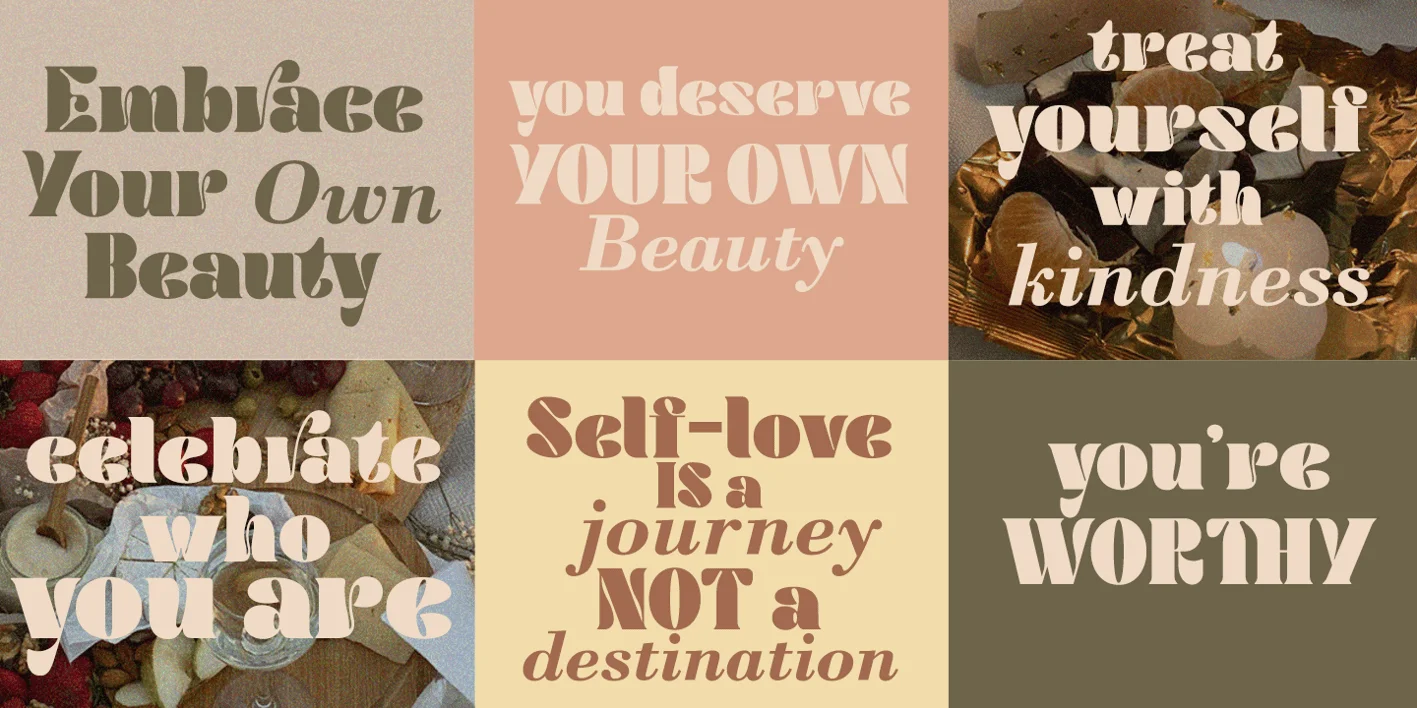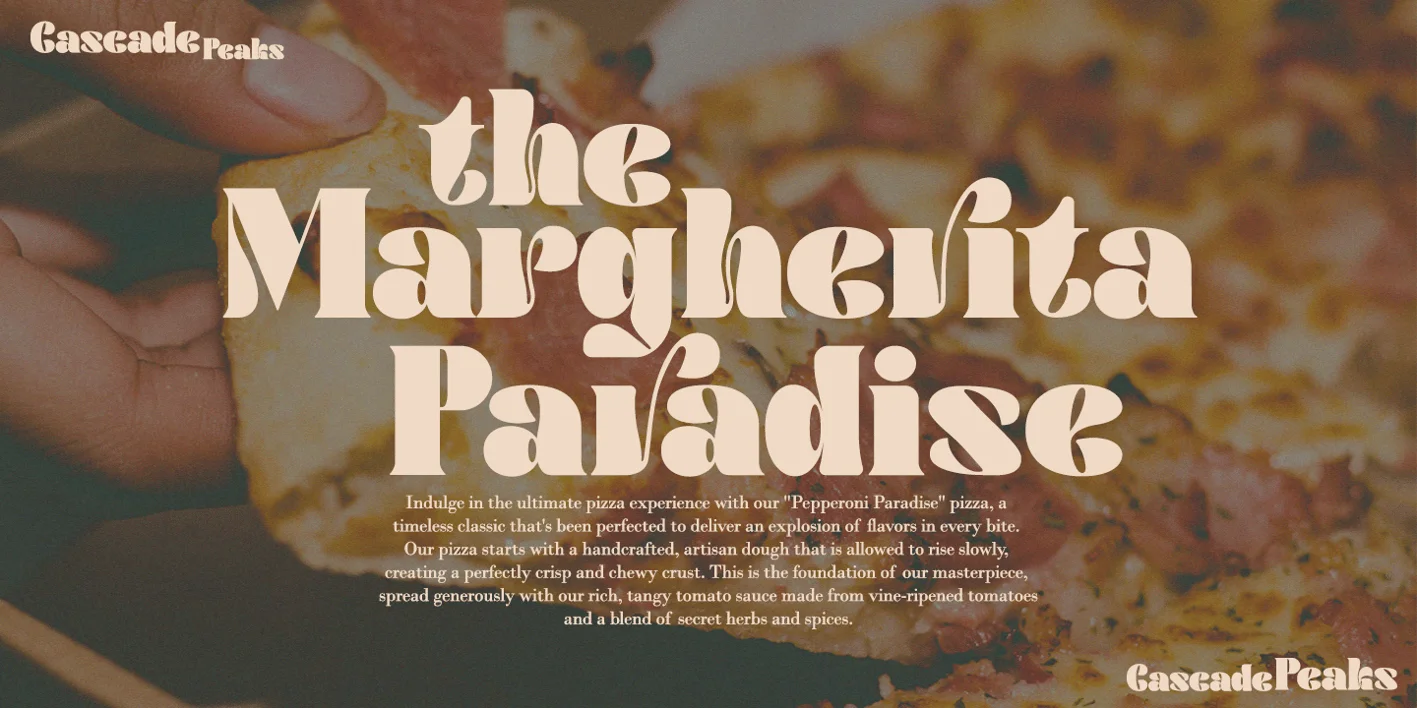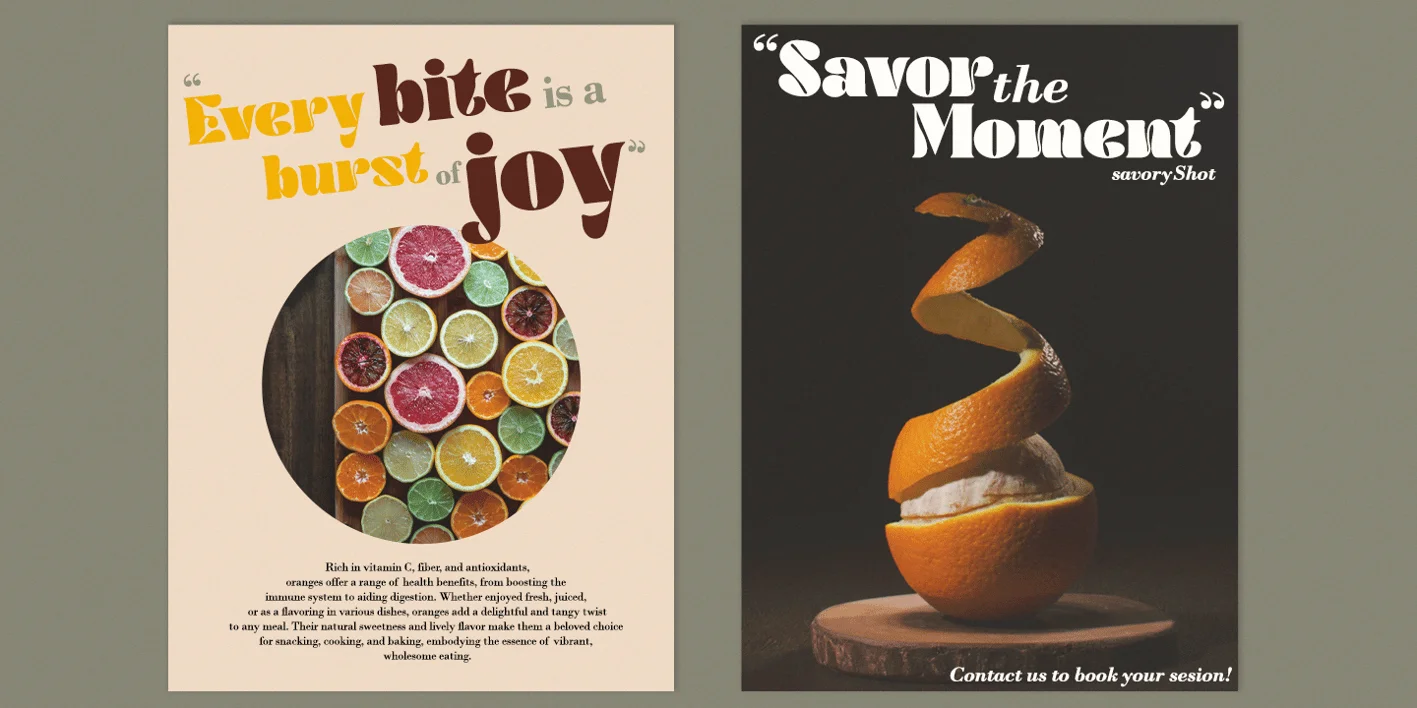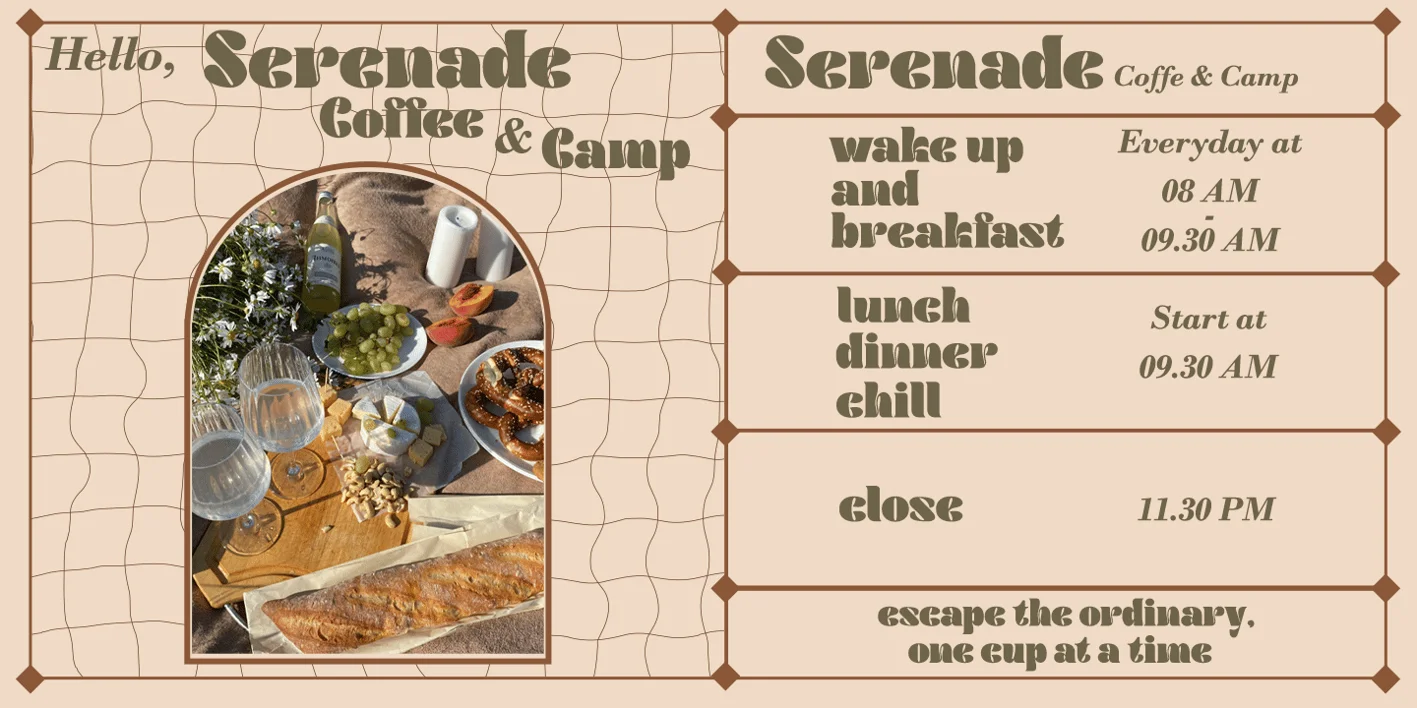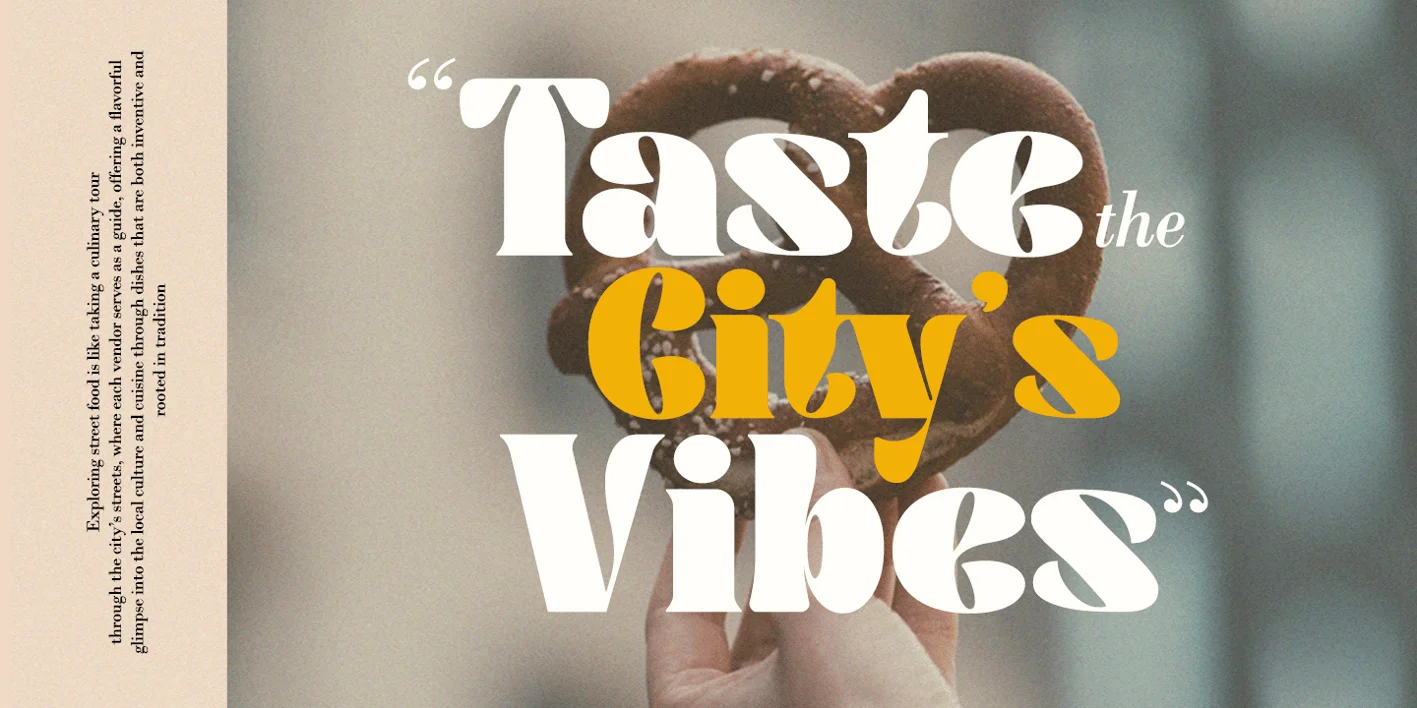
Chups Gelato Font
Chups Gelato is a Pop Fun serif font with unique basic letters and look fun . modern and classic serif font with a clear and bold look. It’s a very versatile font and perfect for branding design, logos, greeting cards, title packaging. and other designs. Immediately use our fonts to make your work even more amazing. What’s Included : - Standard glyphs - Multilingual - Web Font - Works on PC & Mac Simple installations